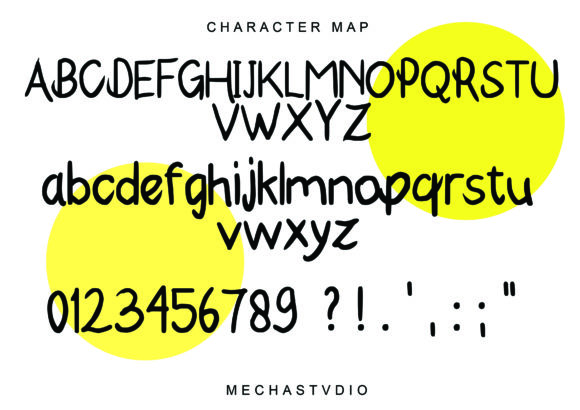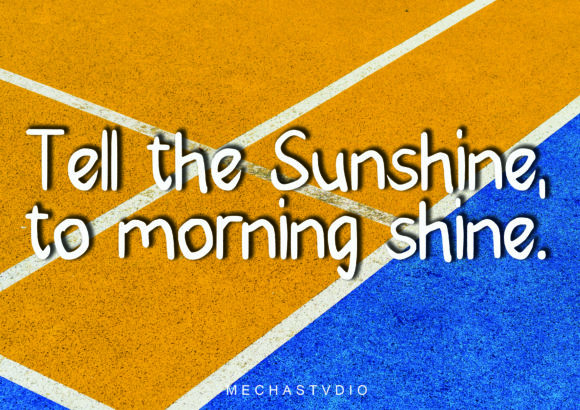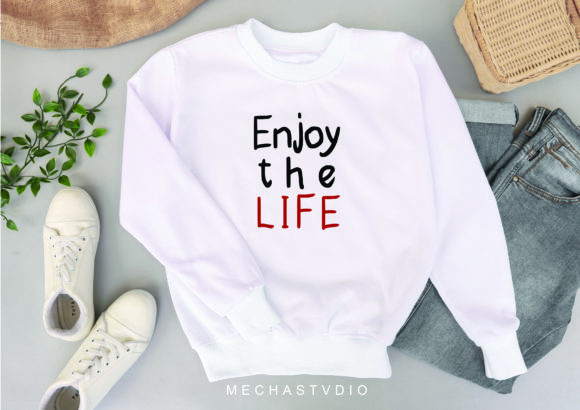
The Morning Spark That Sets Your Design Ablaze
Have you ever found yourself staring at a blank canvas, waiting for that elusive spark to ignite your creativity? For designers, those moments can be the most thrilling – and intimidating. But what if we told you that the key to unlocking your full potential lies in the perfect font?
Meet the Hello Morning Font, a delightful and modern handwritten font designed to bring your creative vision to life. With its playful strokes and whimsical charm, this font is perfect for logos, branding, invitations, stationery, and more. Whether you’re a seasoned pro or a design newbie, the Hello Morning Font is an invaluable tool that will help you craft unique and captivating designs that stand out from the crowd.
Hello Morning Font Key Features
- Unique Characteristics: The font features a modern, minimalist design with a friendly and approachable feel, making it ideal for use in digital products, such as apps, websites, and social media platforms.
Hello Morning Font Review
I’ve had the chance to play around with Hello Morning Font, and I must say, it’s a unique addition to any design project.
- Highly customizable: With over 200 styles to choose from, you can tailor the font to fit your project’s needs.
- Clean and modern aesthetic: The font’s minimalist design makes it perfect for a variety of industries, from tech to lifestyle.
- Professional-grade quality: The font is well-designed and easy to read, making it suitable for a range of applications.
- Limited language support: Hello Morning Font may not be suitable for projects that require language support beyond the Latin alphabet.
- Potentially overwhelming: With so many styles to choose from, it can be challenging to find the right one for your project.
- Not ideal for body text: While the font is great for headlines and titles, it may not be the best choice for large blocks of body text.
Hello Morning Font is a solid choice for designers looking for a modern, customizable font. While it may have some limitations, its strengths make it a great addition to any design project.
Hello Morning Font: A Practical Application Guide
Getting the Most Out of Hello Morning Font
To get the most out of Hello Morning Font, try the following:
- Use it for headings and titles to add a touch of elegance
- Experiment with different font sizes and colors to create visual interest
- Combine it with other fonts to create a unique and eye-catching design
Hello Morning Font is perfect for:
- Print materials such as business cards and brochures
- Choose a light background color to showcase the font’s delicate lines.
- Use Hello Morning Font for headings and key phrases to add a touch of sophistication.
- Experiment with different font sizes and weights to create visual hierarchy.
- Pair Hello Morning Font with hand-drawn illustrations to add a whimsical touch.
- Use pastel colors and watercolor effects to create a dreamy atmosphere.
- Include inspirational quotes in a bold, sans-serif font to add contrast.
- Use Hello Morning Font for the journal’s title and headings to create a cohesive look.
- Experiment with different font sizes and colors to highlight key phrases and quotes.